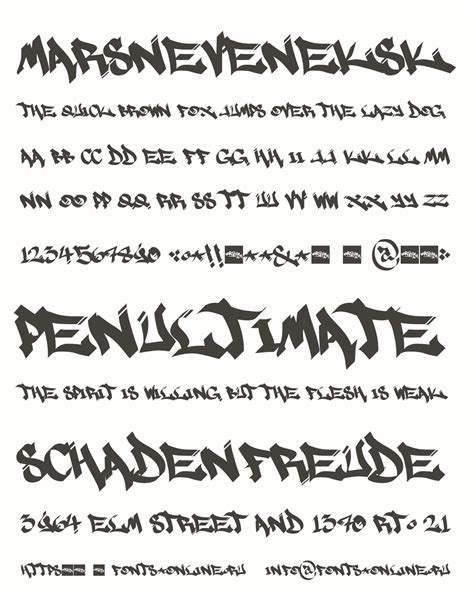
Unlocking Tipografia Marsneveneksk: A Designer's Guide
Hey guys, ever wondered what makes certain designs pop, or how some visual identities just stick with you? A huge part of that magic, believe it or not, comes down to typography . And today, we’re diving deep into something truly special: Tipografia Marsneveneksk . This isn’t just another font; it’s a whole vibe, a distinct personality that can transform your projects from good to absolutely unforgettable. Whether you’re a seasoned design pro or just starting your creative journey, understanding the nuances of Marsneveneksk typography can seriously elevate your game. We’re talking about a design element that carries a unique blend of heritage and modern appeal, offering a richness that’s hard to find elsewhere. It’s got that special something that makes you do a double-take, and once you start playing around with it, you’ll quickly see why so many designers are absolutely obsessed . We’ll explore its origins, what makes it tick, and how you, yes you , can master its use to create some truly breathtaking visuals. So, buckle up, because we’re about to unlock the full potential of Tipografia Marsneveneksk and discover how it can become a cornerstone of your design toolkit. Get ready to impress, inspire, and innovate with this incredible typographic marvel. It’s more than just letters on a page; it’s a statement, a mood, and a powerful communication tool. We’re going to break down everything you need to know, from its aesthetic principles to practical application tips, ensuring you walk away with a solid understanding and a newfound appreciation for this exceptional typeface. Let’s make your designs sing with the unique rhythm of Tipografia Marsneveneksk .
Unveiling Tipografia Marsneveneksk: A Design Revolution
So, what exactly is it that makes Tipografia Marsneveneksk such a big deal in the design world? Well, for starters, its unique character and historical depth set it apart from the sea of generic typefaces out there. Imagine a typography that effortlessly blends classic elegance with a touch of contemporary flair, creating a visual language that feels both timeless and fresh. That’s precisely what Tipografia Marsneveneksk offers. Its origins, while shrouded in a bit of mystery (as all great artistic movements often are!), suggest a dedication to craftsmanship and an eye for intricate detail. This isn’t mass-produced; it feels bespoke , carefully sculpted, and thoughtfully designed. The main keywords, Tipografia Marsneveneksk , really encapsulate this blend of old-world charm and cutting-edge design. It possesses a distinct personality, characterized by specific stroke weights, serifs (or lack thereof, depending on the variant), and an overall rhythm that guides the reader’s eye seamlessly across the page or screen. Think of it as a finely tuned instrument, each letter a note, coming together to form a beautiful symphony of text. Its legibility, even at smaller sizes, is often remarkable, a testament to its thoughtful construction. This makes Marsneveneksk typography incredibly versatile, suitable for everything from intricate body text in a high-end publication to bold headlines on a modern website. We’re talking about a typeface that doesn’t just convey information, but also evokes emotion and establishes a mood . The attention to detail in its curves, the balance in its negative space, and the harmony between individual characters are all hallmarks of a truly exceptional typographic design. It’s the kind of typeface that makes you stop and appreciate the artistry, even if you can’t quite articulate why it feels so good. This attention to aesthetic balance and functional clarity is what has truly propelled Tipografia Marsneveneksk into the spotlight, making it a favorite among designers who value both beauty and utility in their work. Its strong presence commands attention without being overbearing, a subtle power that is rare in the crowded world of fonts. Designers are drawn to its ability to imbue projects with a sense of sophistication and uniqueness, moving beyond the ordinary and into the realm of the extraordinary. This truly unique and robust typeface isn’t just a trend; it’s a testament to enduring design principles that stand the test of time, truly marking it as a design revolution in its own right.
Now, let’s talk about the impact of Marsneveneksk typography on modern design. In a world saturated with digital content and fleeting trends, Tipografia Marsneveneksk stands out like a beacon of stability and style. Its influence isn’t just about looking good; it’s about establishing authority , conveying trust , and creating memorable brand experiences . When a brand chooses Marsneveneksk typography , they’re not just picking a font; they’re making a statement about their values and their commitment to quality. This typeface, with its distinctive aesthetic, helps to cut through the noise, capturing attention in a way that generic sans-serifs simply can’t. It’s particularly effective in branding, editorial design, and high-impact advertising, where a strong, recognizable visual identity is paramount. We see Tipografia Marsneveneksk being used by companies and creators who aren’t afraid to be bold, to stand out, and to embrace a certain level of sophisticated elegance. Its ability to marry tradition with contemporary sensibilities makes it incredibly appealing across various industries, from luxury goods to tech startups seeking a touch of classic credibility. The versatility of Marsneveneksk typography means it can be adapted to various mediums – print, web, mobile – maintaining its integrity and impact regardless of the platform. This adaptability is crucial in today’s multi-channel design landscape. Furthermore, its unique visual characteristics often spark creative inspiration in designers, pushing them to explore new layouts, color palettes, and imagery that complement its distinctive form. It’s not just a tool; it’s a muse. The way Tipografia Marsneveneksk interacts with other design elements, whether it’s photography, illustration, or negative space, often creates a synergistic effect, enhancing the overall aesthetic and communicative power of a piece. Many designers report that once they start using it, they find themselves thinking differently about composition and hierarchy, truly leveraging its strengths to guide the viewer’s eye and emphasize key messages. It becomes an integral part of the narrative, giving voice and character to the content. Its bold strokes and elegant curves create a visual hierarchy that is both aesthetically pleasing and functionally effective, making Marsneveneksk typography a truly transformative element for any design project seeking to make a lasting impression and communicate with impact.
Mastering Marsneveneksk: Tips for Designers
Alright, guys, now that we’ve gushed about how awesome Tipografia Marsneveneksk is, let’s get down to the nitty-gritty: how to actually use it like a pro. Because, let’s be real, a great font only shines if you know how to wield it. The first crucial tip for effectively using Marsneveneksk typography is understanding its inherent strengths. It possesses a certain gravitas, a weight that demands respect. Therefore, it often performs exceptionally well as a display typeface for headlines, subheadings, and short, impactful statements. Imagine it gracing the cover of a magazine, the masthead of a prestigious publication, or the title of a sleek website – it instantly communicates authority and sophistication. When it comes to pairing, Tipografia Marsneveneksk often plays beautifully with simpler, more neutral sans-serifs for body text. This contrast creates a harmonious balance, allowing the unique character of Marsneveneksk to stand out without overwhelming the reader. Think of it as the star of the show, with supporting actors providing the foundational narrative. Avoid pairing it with other overly ornate or strong display fonts, as this can lead to a visual